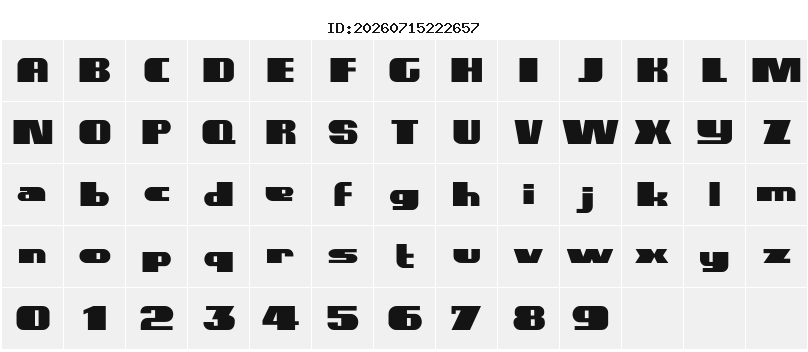
Asphalt Preview
• Font Name: Asphalt
About Asphalt.ttf
Asphalt.ttf is a modern, elegant sans-serif font designed for ultimate readability and visual harmony. Perfect for branding, headlines, web design, and print materials.